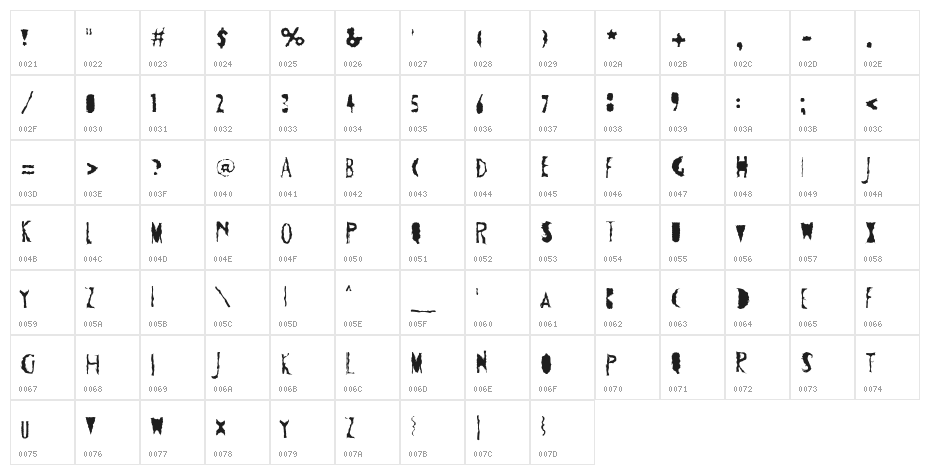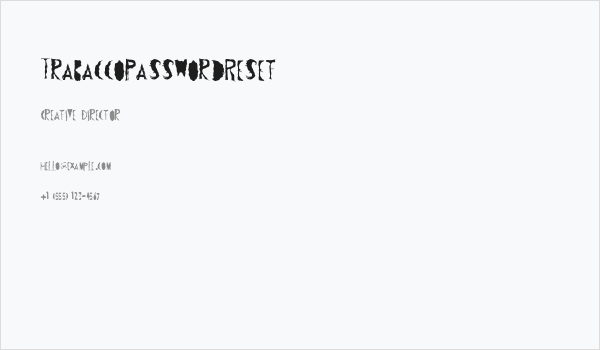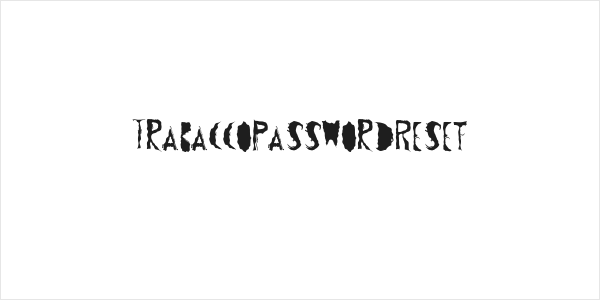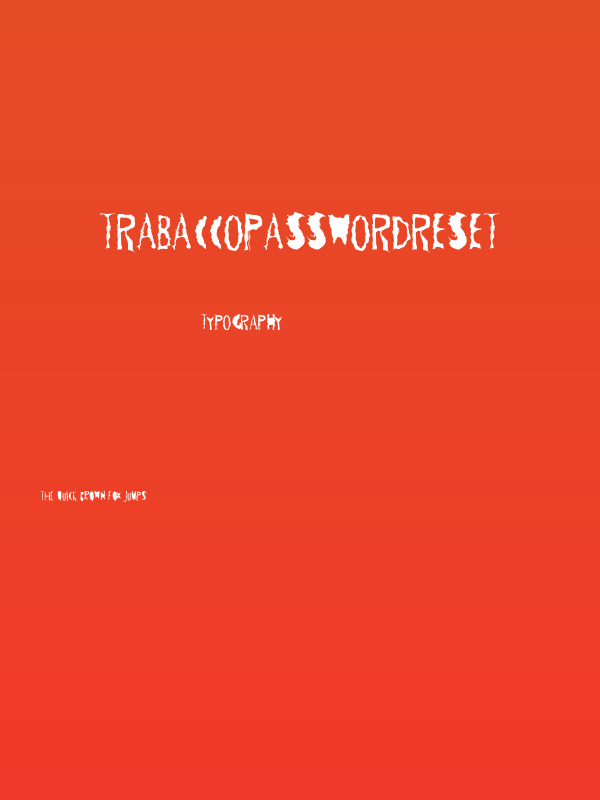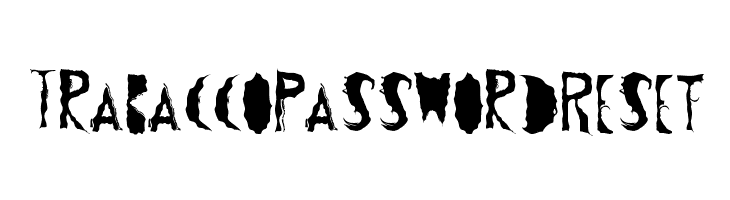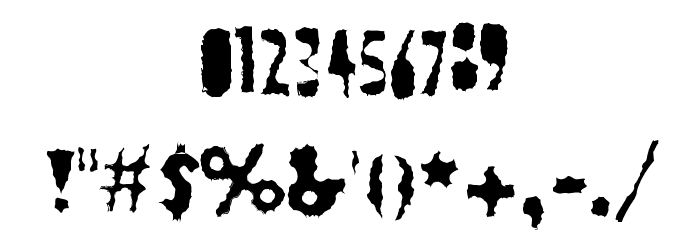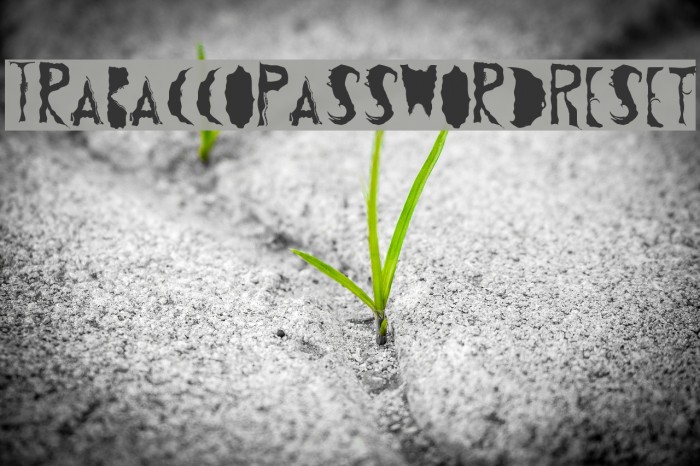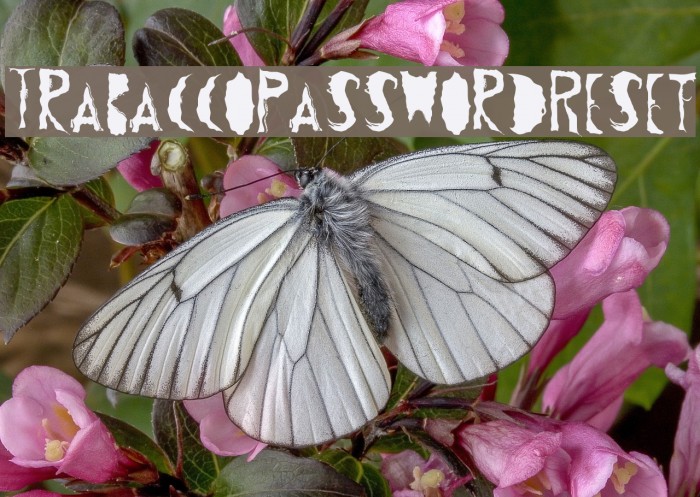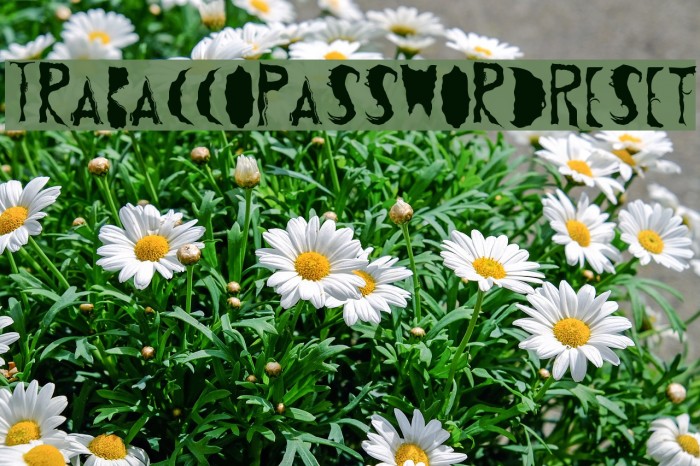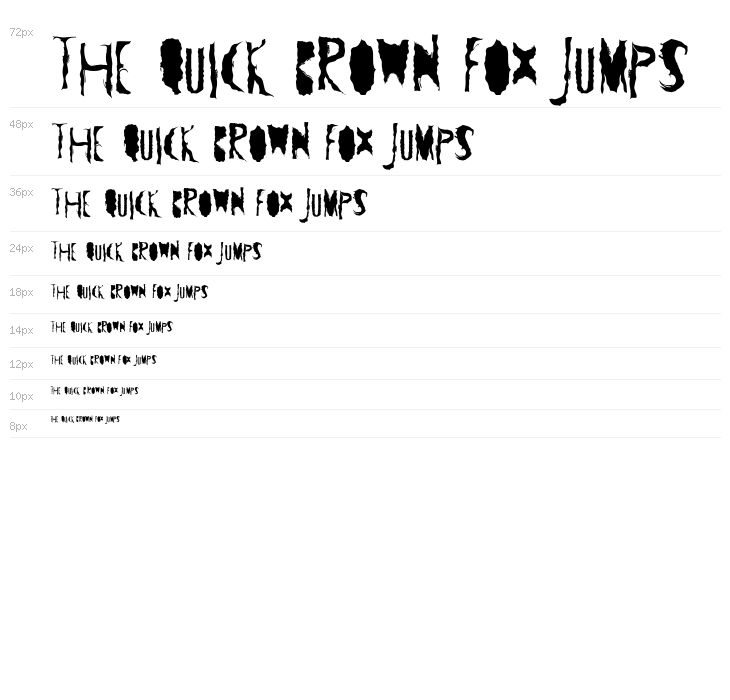
TrabaccoPasswordReset Font
TrabaccoPasswordReset Description
This font features a highly decorative and distressed style, reminiscent of torn paper or dripping paint. The characters have an irregular, jagged appearance, giving them a chaotic and edgy feel. The uppercase and lowercase letters maintain a consistent theme, with each character exhibiting unique cuts and shapes that add to the overall rugged aesthetic. Numbers and special characters follow the same design principles, ensuring a cohesive look across all glyphs. This font is ideal for projects that require a bold, eye-catching display with a touch of grunge or horror elements.
| Proposed Projects | Ideal for horror-themed posters, Halloween invitations, edgy branding, or album covers. |